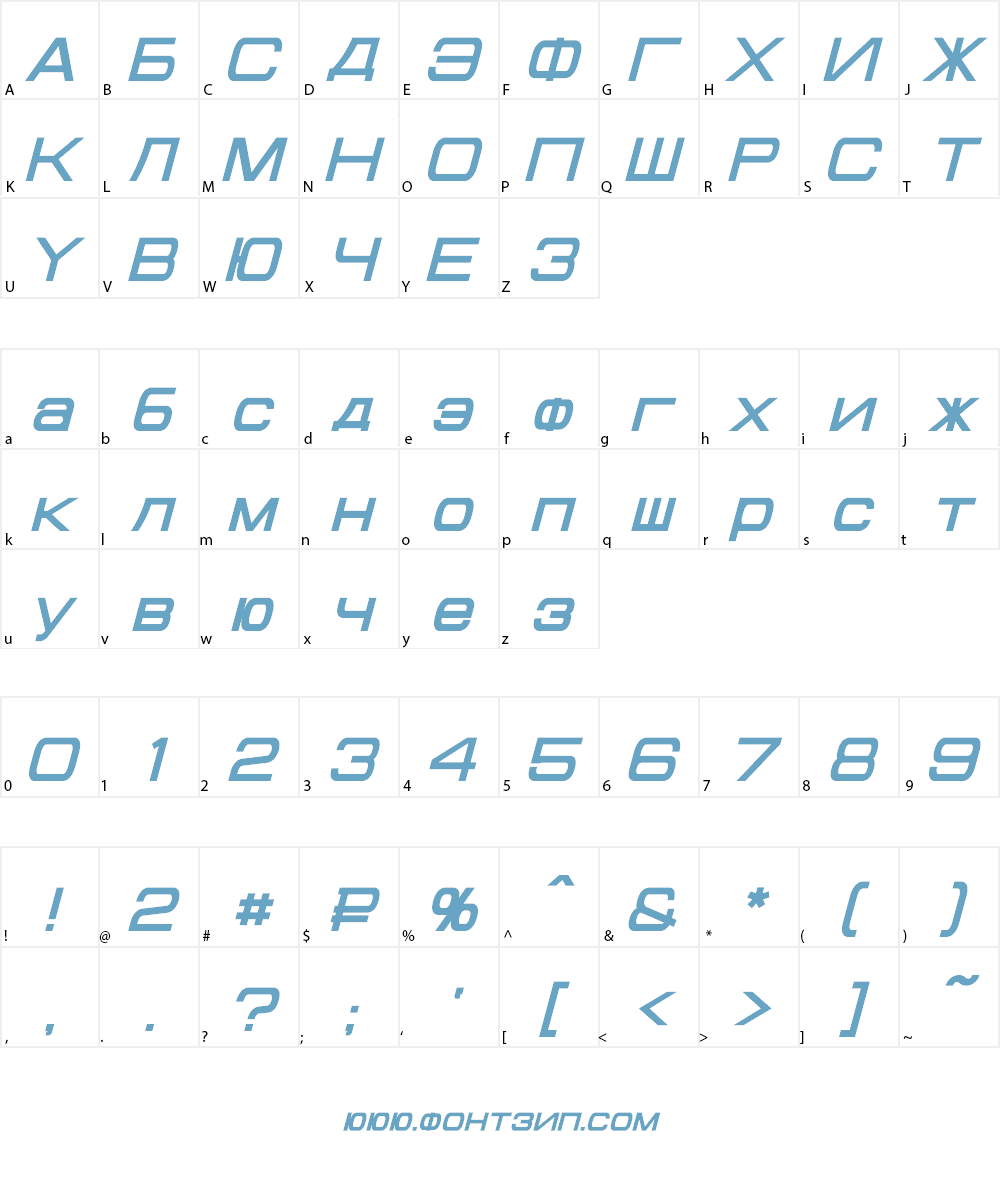
Cyrillian is a 'tech manual' style version of the classic Russian Cyrillic lettering. It is designed as a 'letter-replacement' code-font, with letter glyphs lined up to their closest English equivalents. Includes regular, bold, italic, and bold italic versions.